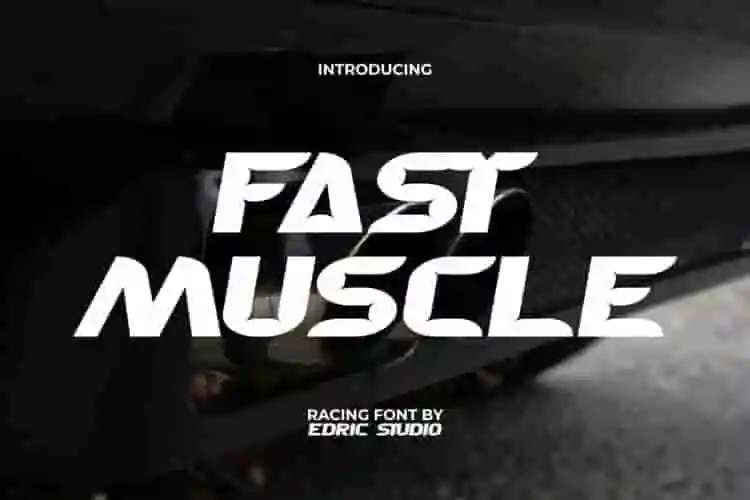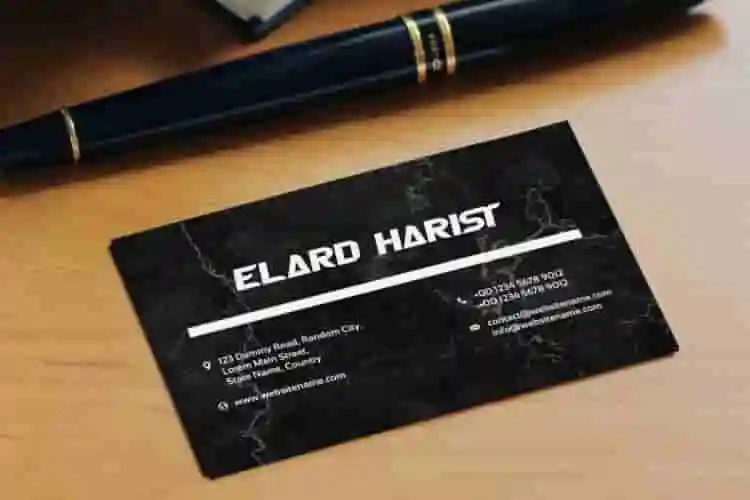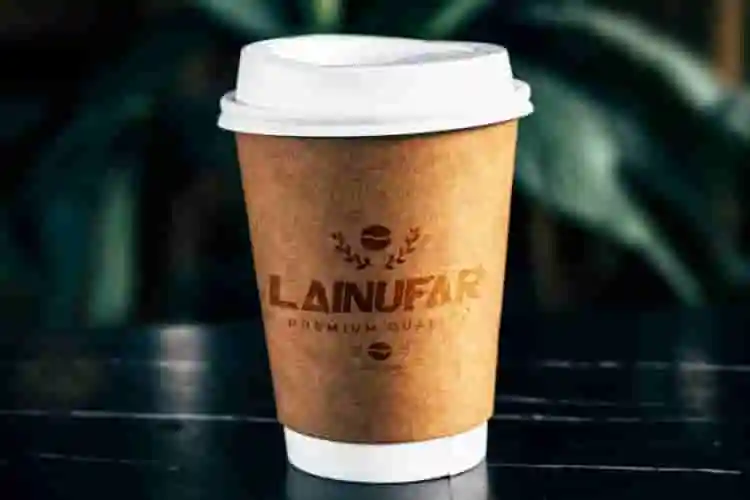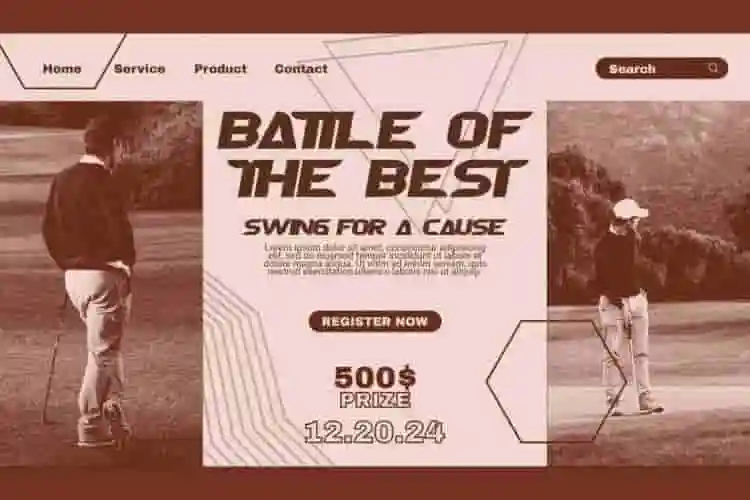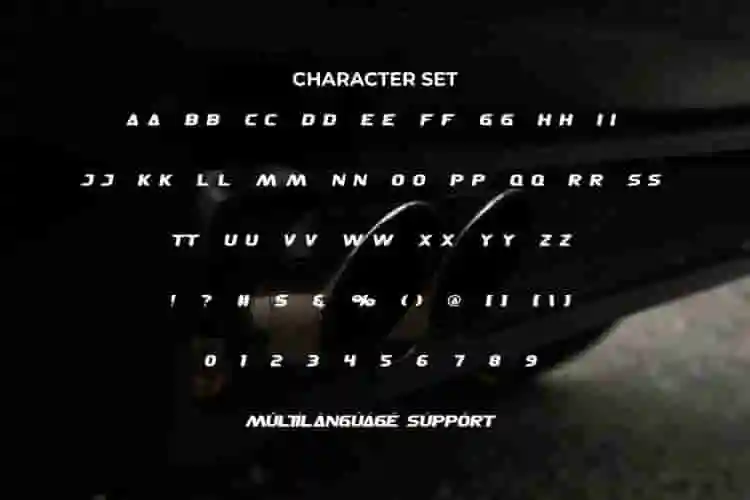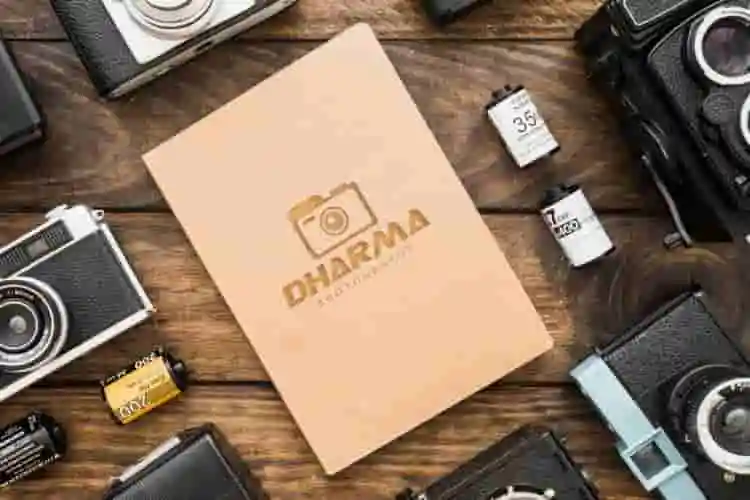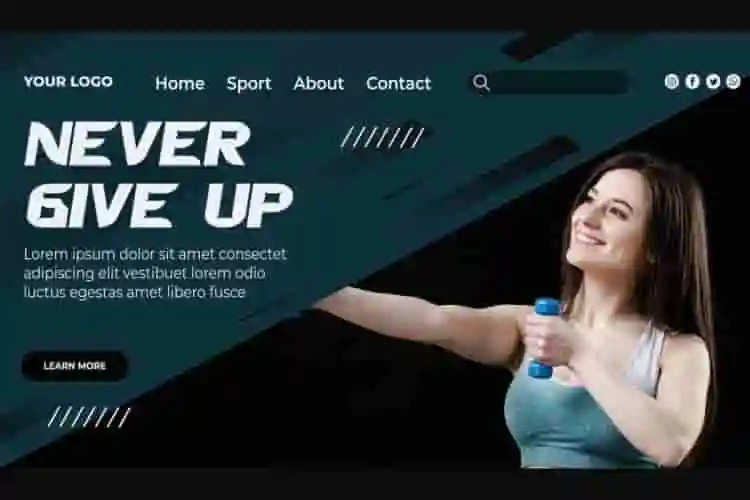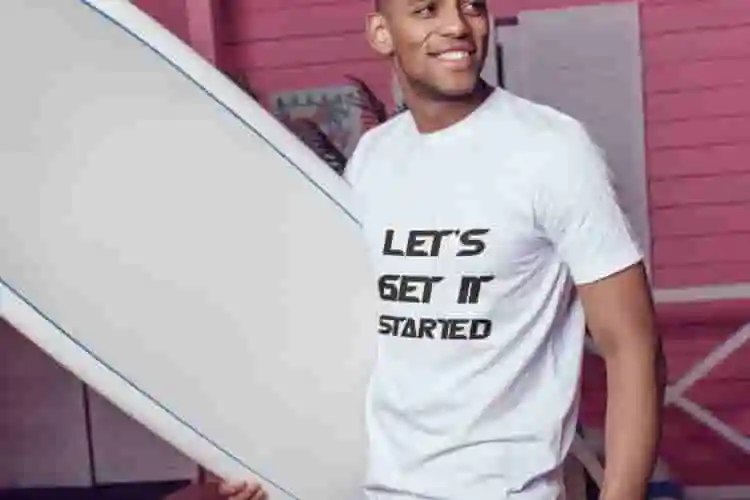
Fast Muscle Font is a bold racing display font that has special curves on its letters like the muscle mass of a bodybuilder. This font is here to give your designs a different and stand out upgrade. It will greatly support and inspire your creative soul and will even be a perfect fit for blogs, brochure, business card, headers, headlines, labels, logos, poster, print materials, text, websites and more!!
Fast Muscle Font is a very unique and modern that will help make your design more attractive, because this font has a different shape from the others!! The font includes a complete set of ALL CAPS for both Upper and Lower case letters, Numbers, Punctuation, and Symbols. Very suitable for use in ads, cafes, clothing brand, corporate business, graphic design, gym, photography, sports, vehicle, and many others.
Turn up the power with Fast Muscle Display Font — a bold, heavy-hitting display font designed for strength-focused designs that need to dominate. Inspired by athletic grit, speed, and raw muscle, this font brings a strong visual impact to every word.
Perfect for gym logos, supplement packaging, sports team branding, fitness apparel, race posters, and hardcore merchandise — Fast Muscle Display Font is built to display confidence, power, and motion. Its thick lines, sharp angles, and aggressive energy make it a go-to font for bold marketing that pushes limits.
Whether you’re branding a powerlifting brand, creating workout programs, or designing race-day graphics, this display font brings intensity and clarity to your message.